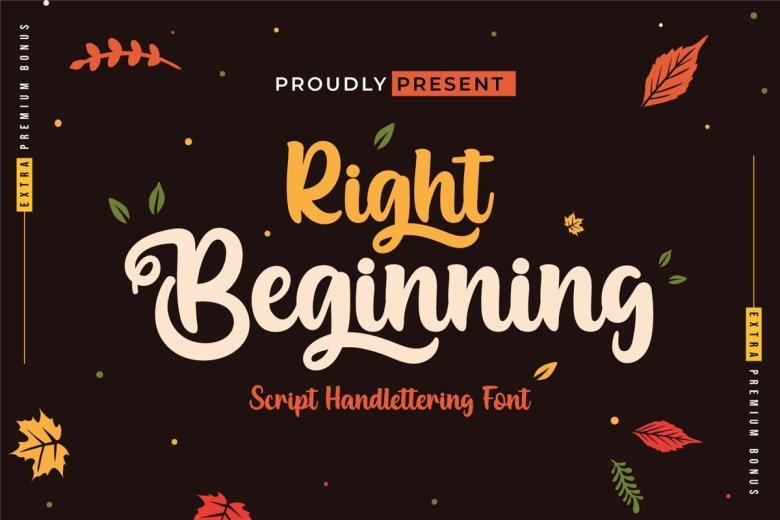
Right Beginning Bold Script Font
Introducing our new font called Right Beginning Bold Script, Adorable and cute fonts, there are various variations in each upper and lowercase letter, making this font suitable for you to place and use in any of your projects or in any media you want, this font is surnamed script with cute and beautiful nuances. It also has a charming modern character, perfect for Halloween and Crist mast nuances.
This charming font also offers the beauty of abstract typography harmony for a wide variety of design projects, including digital natural handwriting for designs, quote designs, for social media business designs, advertisements, trademarks, food and beverage promotion banners, text, posters, a signature, and all designs require handwriting or whatever design you want.